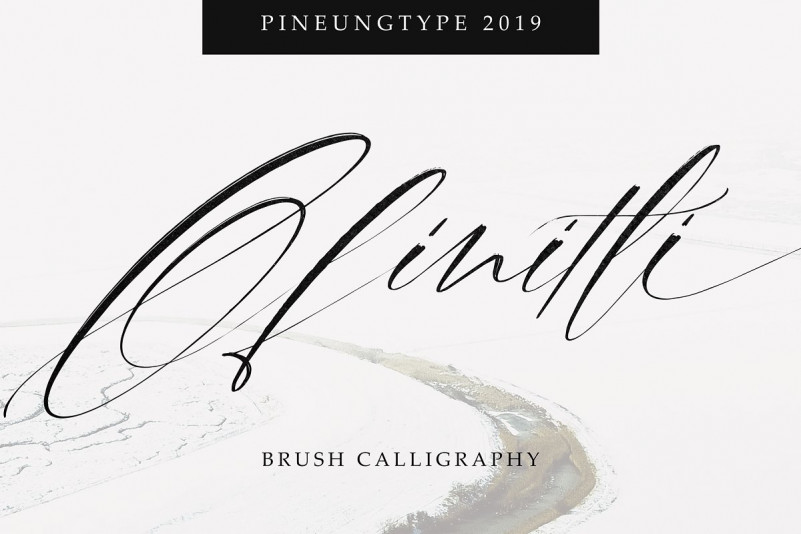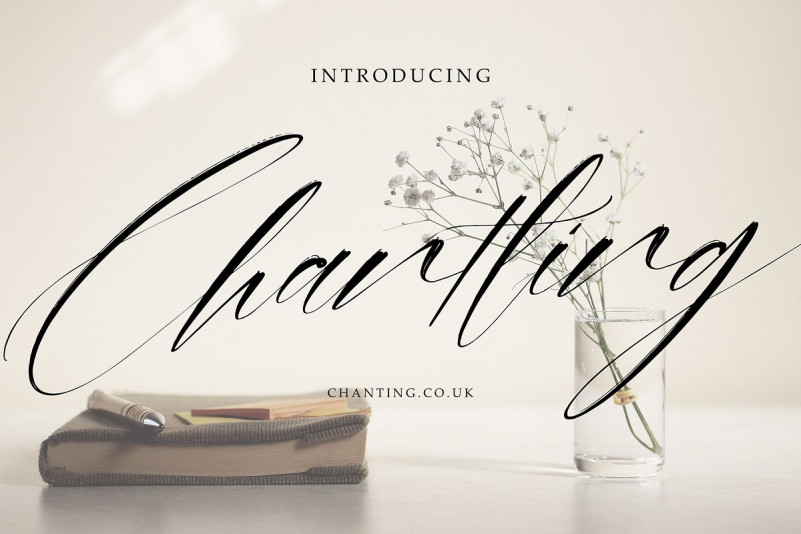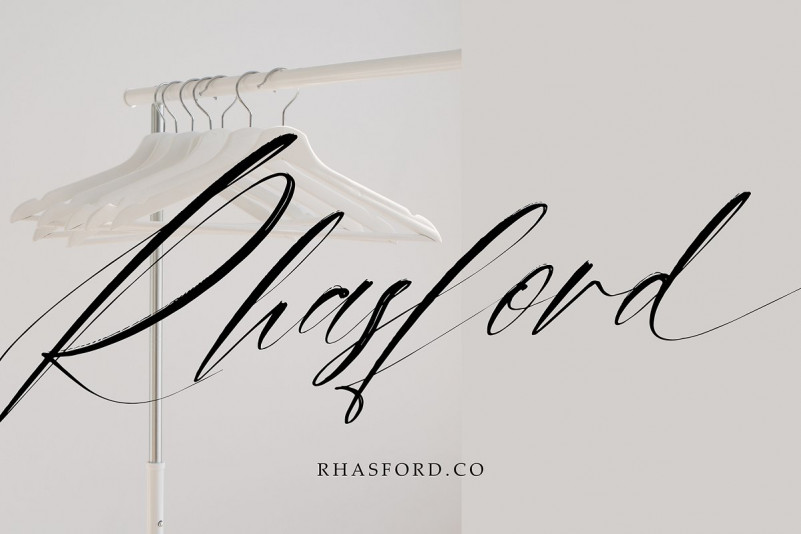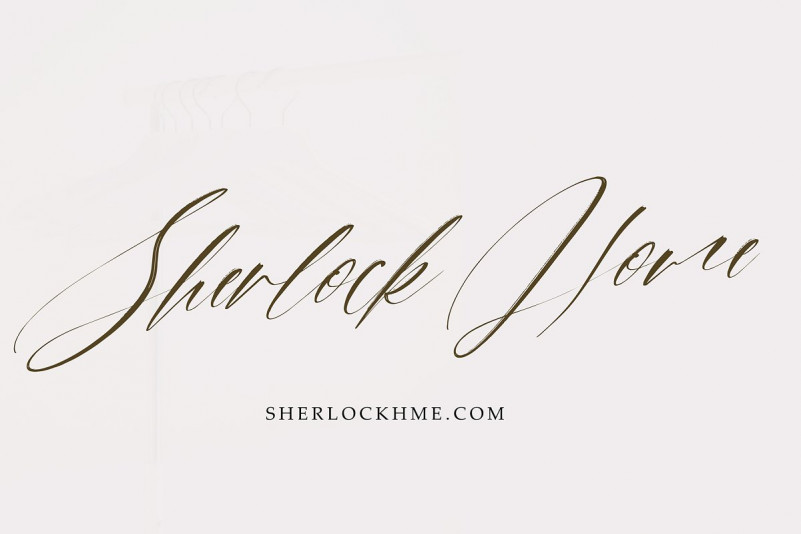
Ofinitti font
Ofinitti Brush Handwritten font style, this font will perfect for many different project ex: quotes, logo, blog header, poster, banding, fashion, apparel, letter, invitation, stationery, etc…